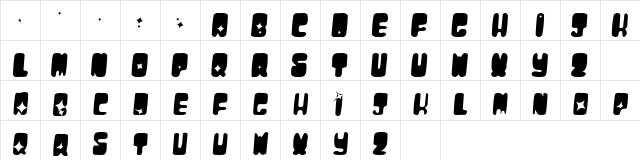
MoonPie Cadet Regular
Design Context for MoonPie Cadet Typeface
MoonPie Cadet is a composed and adaptable typeface that performs quietly and consistently across a wide range of design contexts.